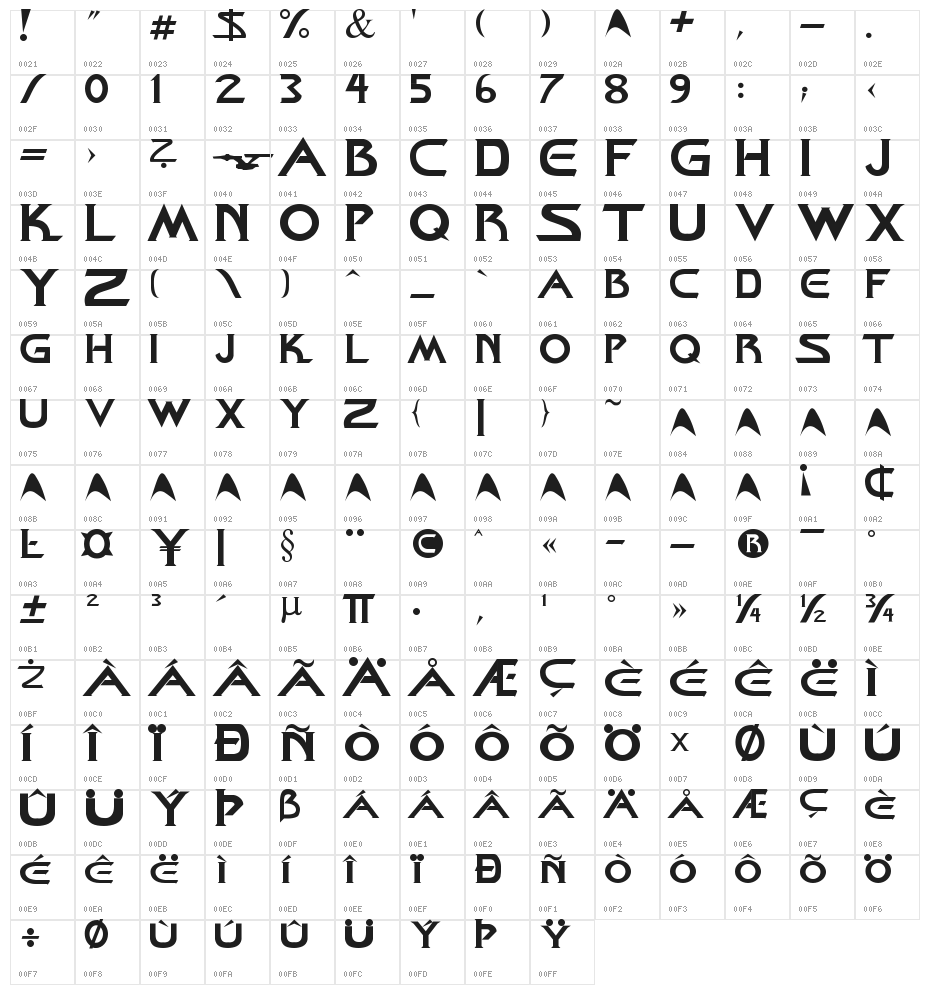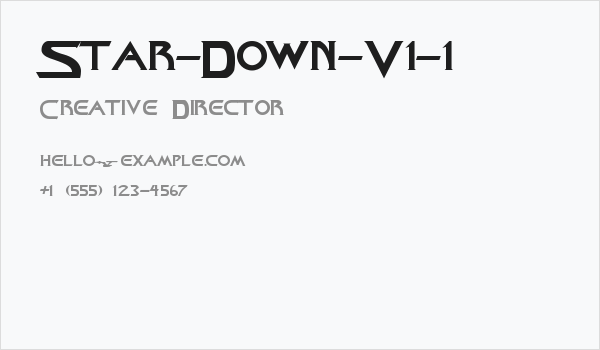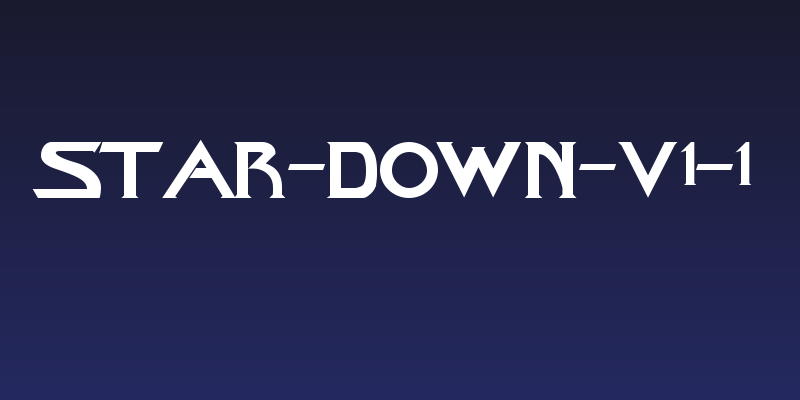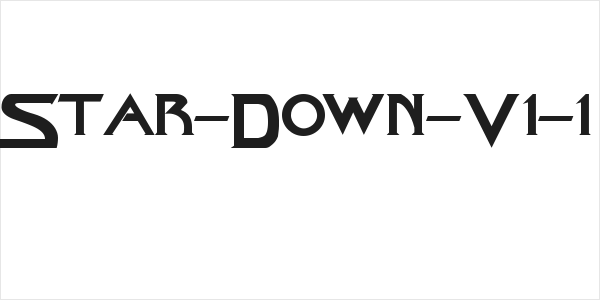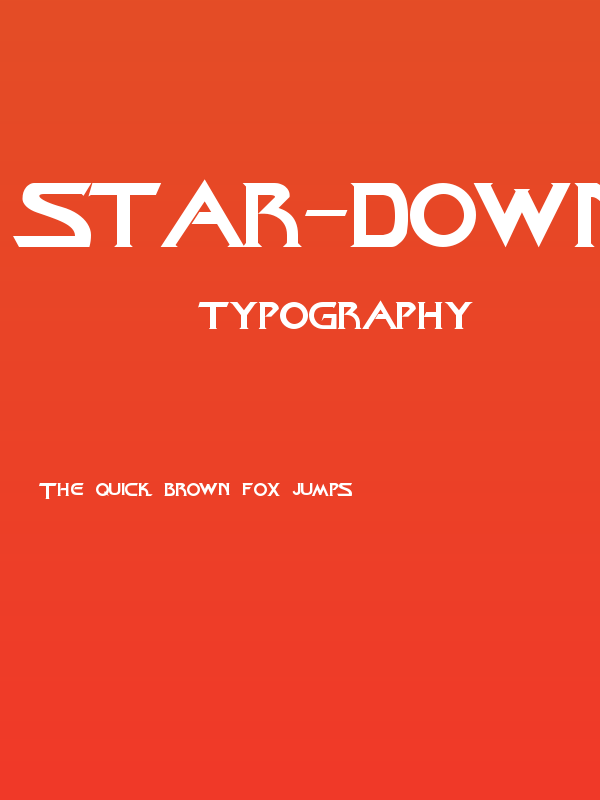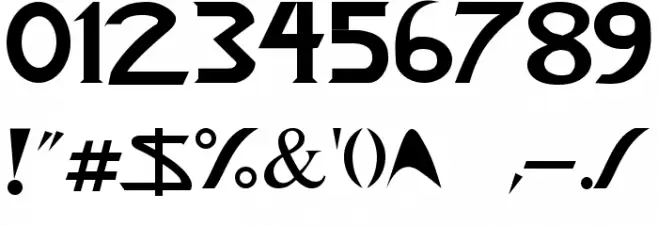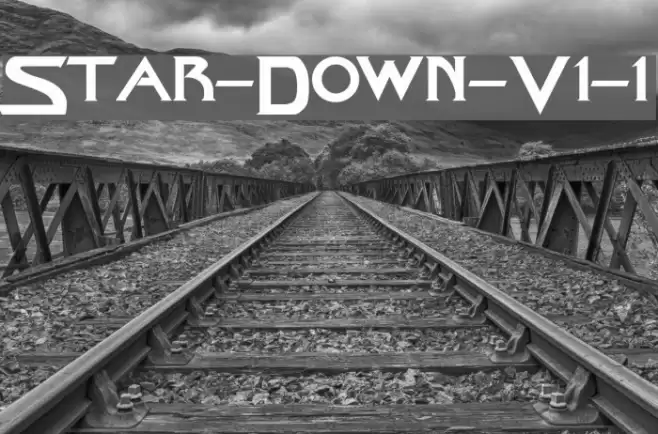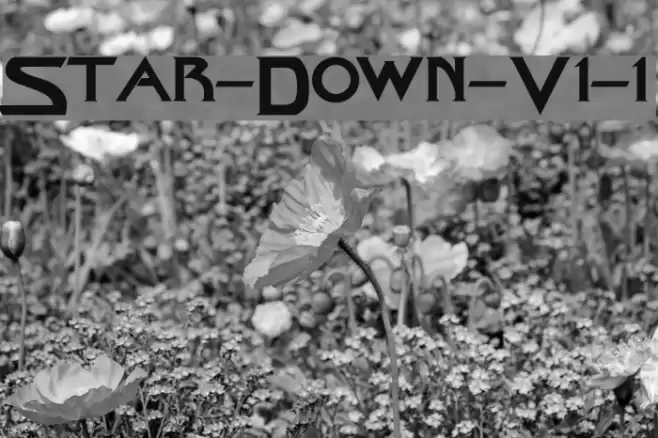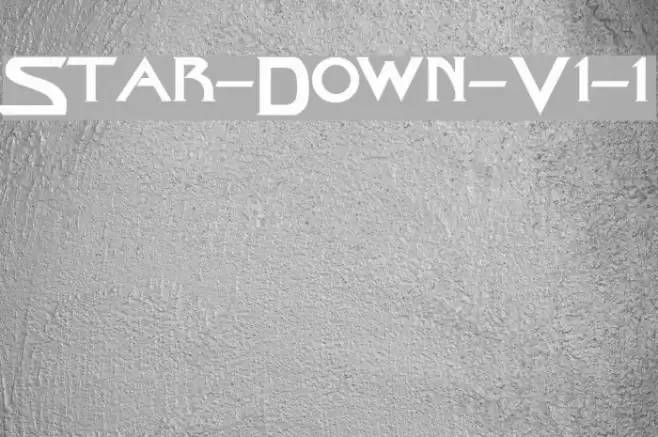
Star-Down-V1-1 Font
Star-Down-V1-1 Description
This font features a bold and futuristic design with sharp, angular edges and a geometric structure. The uppercase and lowercase letters maintain a consistent style, characterized by their unique cut-out shapes and dynamic slants. The numerals are equally stylized, offering a cohesive look across all characters. Special characters are designed with the same attention to detail, making them stand out while remaining harmonious with the rest of the font. This font's distinct appearance makes it ideal for projects that require a modern and edgy aesthetic.
| Proposed Projects | Ideal for sci-fi themed designs, video game graphics, movie posters, and branding that requires a modern edge. |